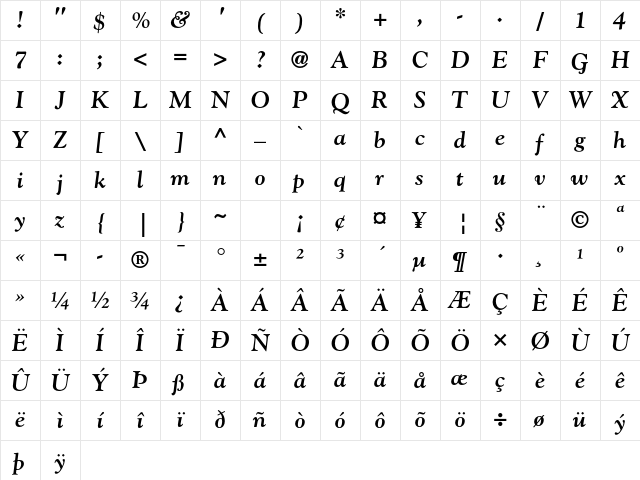
Complete Goudy Oldstyle Std Bold Italic glyph index. Displaying only characters natively supported by Goudy Oldstyle Std Bold Italic font.
Goudy Oldstyle Std carries the refined structure of traditional serif typography, with bracketed terminals and considered proportions that communicate credibility and craft. The slanted form adds forward momentum and visual energy. Its bold stroke weight gives it real presence on the page.